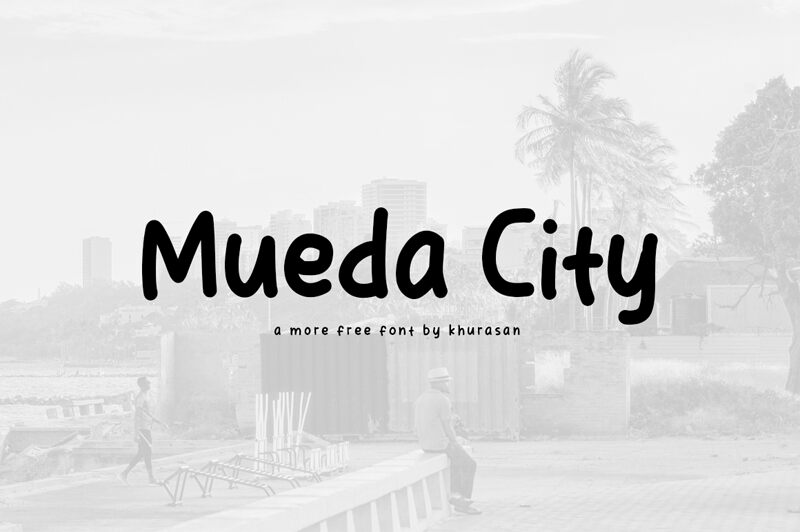
Mueda City
Mueda City, a delightful creation by Khurasan, is a charming handwritten font that brings a modern and cute touch to any design.
Its versatility makes it suitable for an array of projects, including posters, logos, magazines, book covers, and banners. With Mueda City in your toolkit, you can effortlessly enhance your creative ideas and watch as they come to life with an undeniable charm.